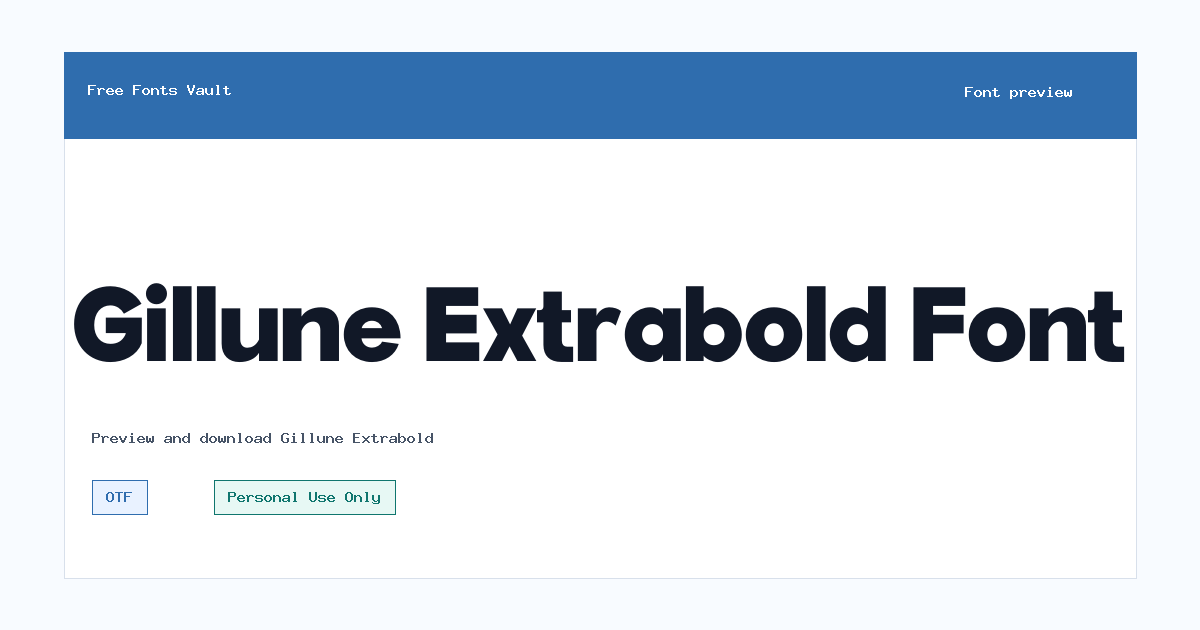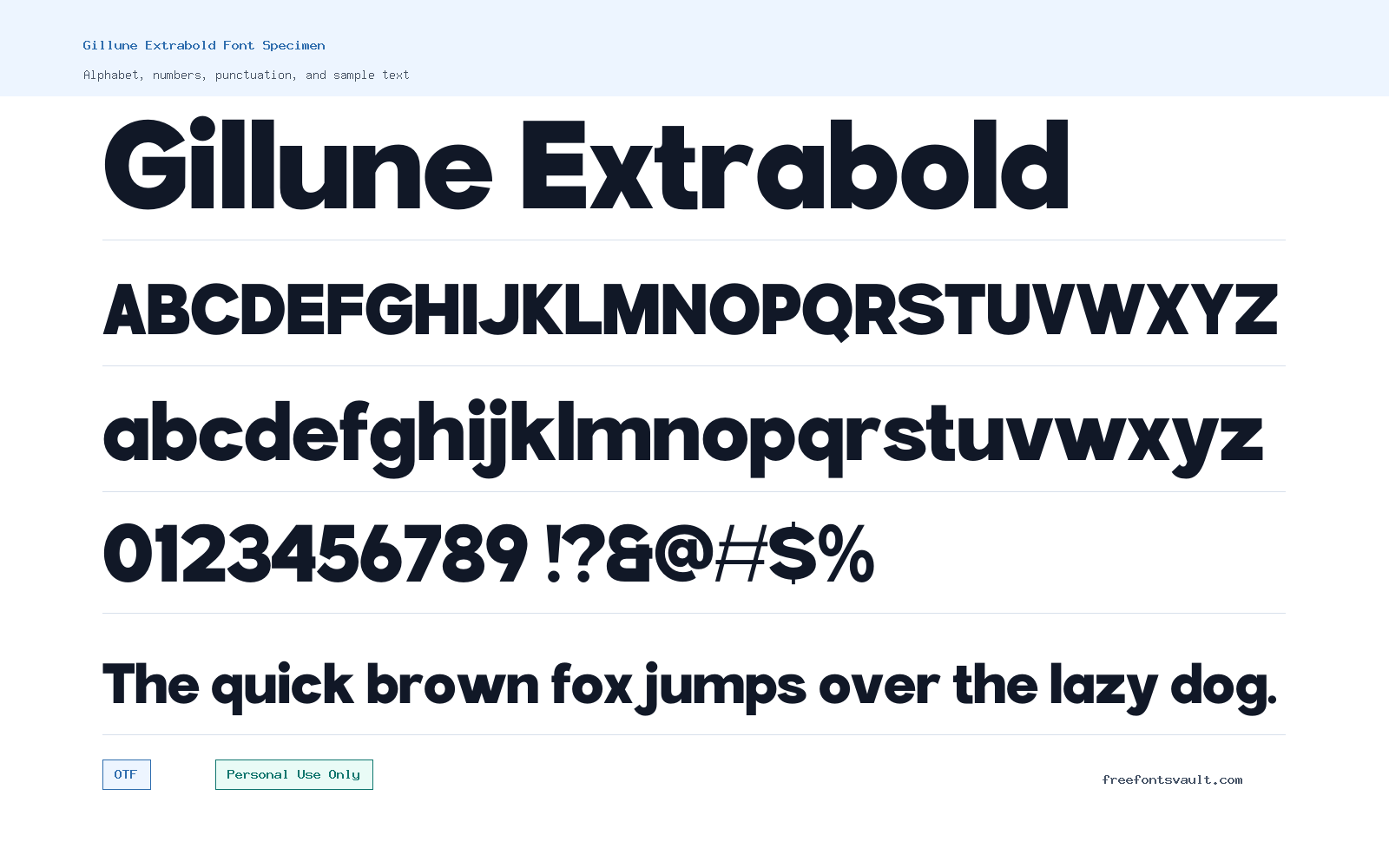
Gillune Extrabold
• Designer Casloop Team
• Foundry Casloop Studio
Gillune Extrabold is a heavy sans serif typeface from Casloop Team, offered in regular and italic OTF styles for personal-use design projects.
About Gillune Extrabold
Gillune Extrabold is built for text that needs weight and presence. Its extra-bold style makes it more suitable for short, high-impact typography than for long paragraphs. Use it when a design needs a strong headline, a compact title, or a clear wordmark-style treatment. Because the available styles include both upright and italic forms, you can create simple contrast inside a layout without switching to a different family.
This font is a practical choice for poster titles, social graphics, cover mockups, bold web headers, display cards, and logo experiments. In logo work, test the spacing carefully at several sizes, especially if the name includes narrow letters, double letters, or punctuation. For posters and thumbnails, try it with generous letter spacing or tight all-caps settings and compare which one feels clearer. For web mockups, Gillune Extrabold can work well as a hero heading or navigation accent, but it should usually be paired with a lighter, calmer text font for body copy.
The italic file gives the family more flexibility. It can be useful for secondary emphasis, short taglines, product labels, pull quotes, or alternate title treatments. Avoid relying on the italic for long reading passages, since a heavy italic style can become tiring when used in dense text. A better approach is to use the upright style for the main display line and reserve the italic for a smaller phrase or supporting detail.
For pairing, keep the supporting type simple. A clean sans serif with regular or medium weight will usually balance the heavy display look better than another decorative face. If you are building a poster or brand mockup, try Gillune Extrabold for the main name and a neutral sans serif for dates, descriptions, URLs, or small captions. If you use it beside a serif, choose a restrained serif and let Gillune carry the visual weight.
• Extra-bold sans serif style suited to short display text, titles, and strong visual emphasis.
• Useful for testing logo concepts, poster headlines, social media graphics, and web hero typography.
• Italic style allows quick contrast for taglines, emphasis, or alternate display settings.
• Best used in short text settings where bold letterforms can stay clear and readable.
• Poster headlines and event titles
• Logo drafts and wordmark experiments
• Social media graphics and quote cards
• Website hero headings and landing page mockups
• Album, zine, or cover-style layouts
• Product labels and short branding text
• Bold typographic compositions
• Display text that needs a heavy sans serif look
What weight is Gillune Extrabold?
Both listed styles use a 700 font weight, which fits the extra-bold display use suggested by the font name.
Is Gillune Extrabold good for body text?
It is better for short display text than body copy. Use it for headings, titles, and emphasis, then pair it with a lighter readable font for paragraphs.
Does Gillune Extrabold include an italic style?
Who designed Gillune Extrabold?
The font is credited to Casloop Team, and Casloop Studio is listed as the foundry.